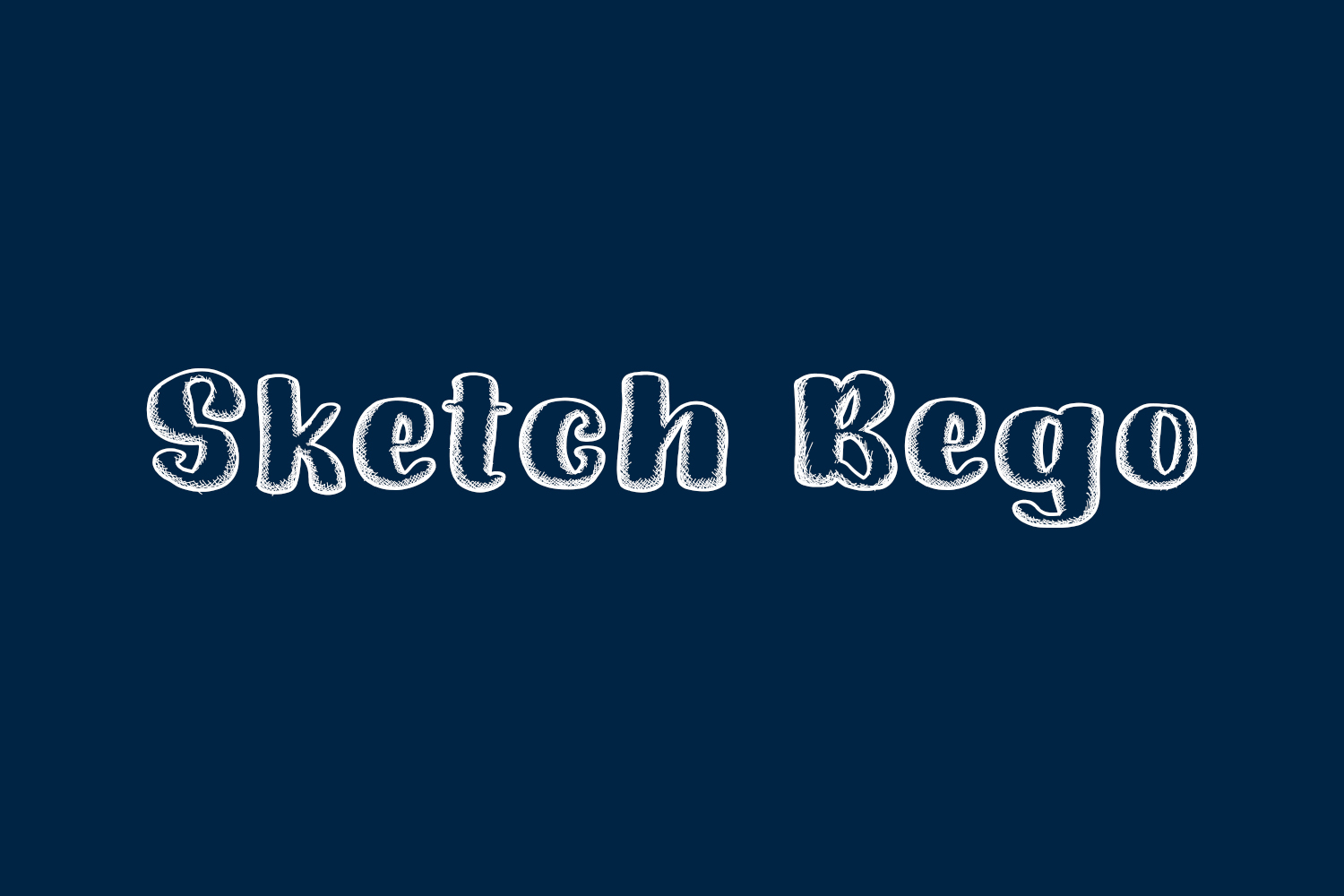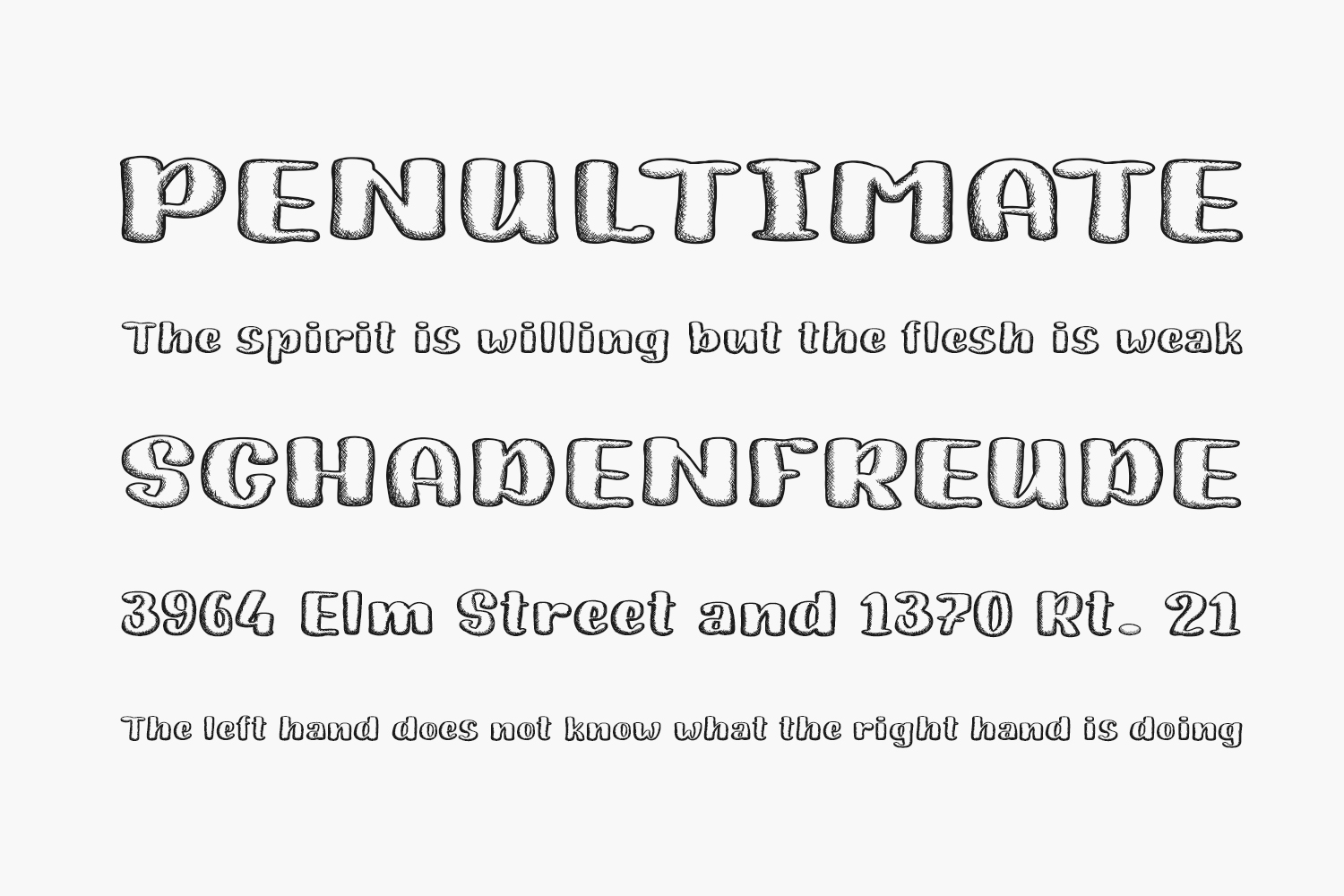
Sketch Bego is a bold and expressive handwritten sketch-style font designed by Royaltype to bring raw creativity and urban flair to your design projects. With its rough outlines, natural strokes, and sketchbook aesthetic, this free decorative typeface works perfectly for crafting graffiti-inspired logos, streetwear branding, social media graphics, posters, and more. Available in OTF, TTF formats — ideal for designers seeking a modern hand-drawn font that adds character and authenticity to any layout.
Why Choose Sketch Bego?
- Hand-Drawn Sketch Style: Mimics real pencil strokes for a raw, authentic look perfect for urban visuals.
- Ideal for Streetwear & Graffiti Design: Perfect for clothing tags, sneaker labels, or music-related designs needing attitude.
Where to Use Sketch Bego?
Sketch Bego shines across a variety of creative applications:
- Logos & Branding: Adds personality to brand identities for skate culture, underground studios, or lifestyle brands needing an edgy tone.
- Poster & Billboard Design: Designed for high visibility — makes headlines pop in event flyers or outdoor advertising.
- Social Media Graphics: Creates bold text overlays for Instagram Stories, TikTok videos, or YouTube thumbnails with a rebellious vibe.
- Packaging Design: Brings intensity to product names on beverage cans, novelty items, or streetwear tags.
- Editorial Headers: Stands out in blog headers, magazine covers, and digital banners with a human touch.
Design Tips with Sketch Bego